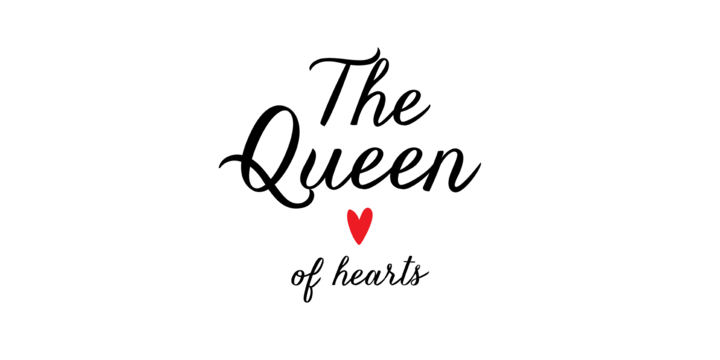
Kailey
Kailey font is a beautiful hand lettered, voluptuous typeface. It is also a very special oblique font is inspired by “signature” lettering style of Molly Jacques via using bold brush strokes, idiosyncratic characters and fluid trappings. Kailey is renowned a distinct feminine feel that employs a bold approach to match the curve. Download Kailey font … Read more